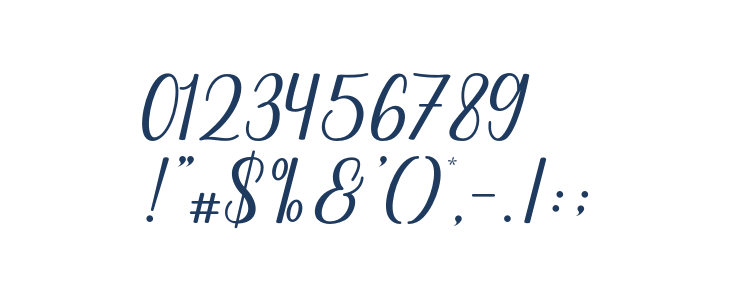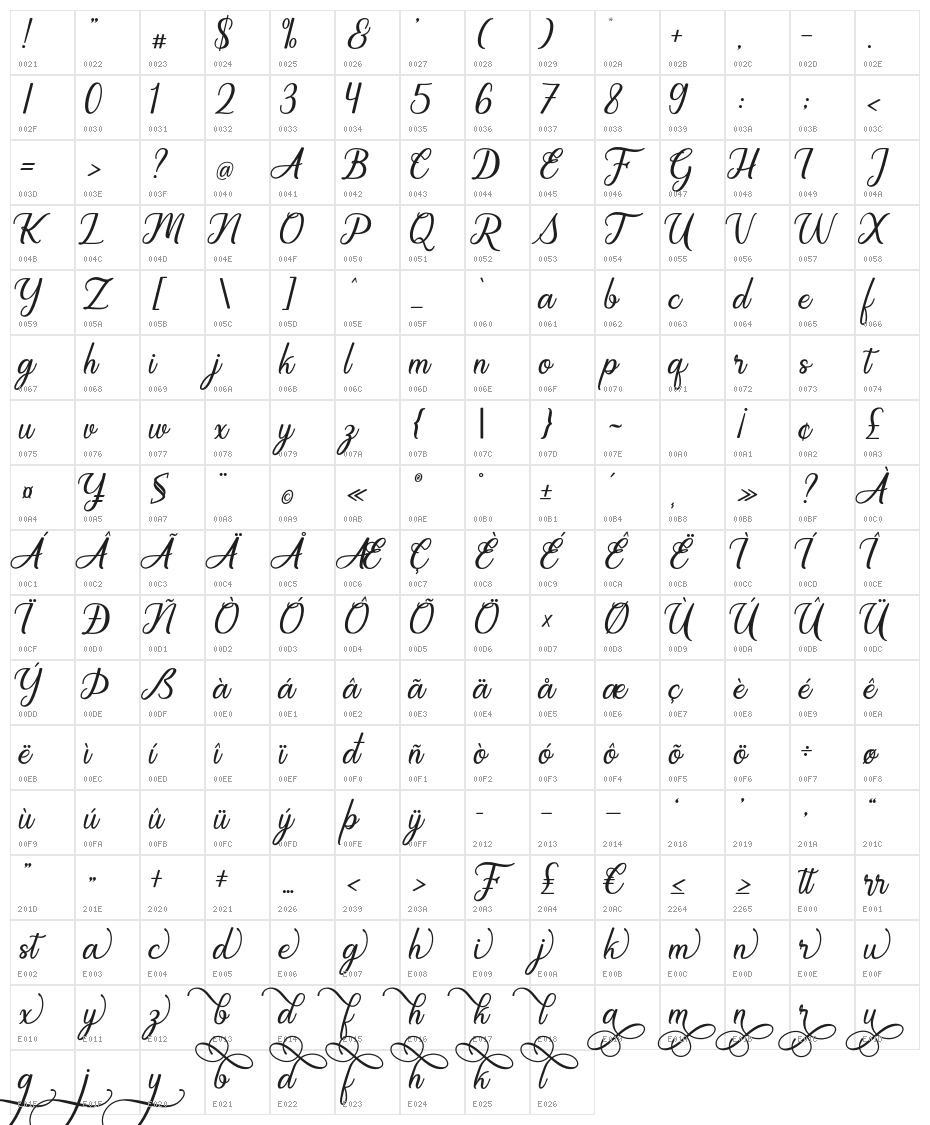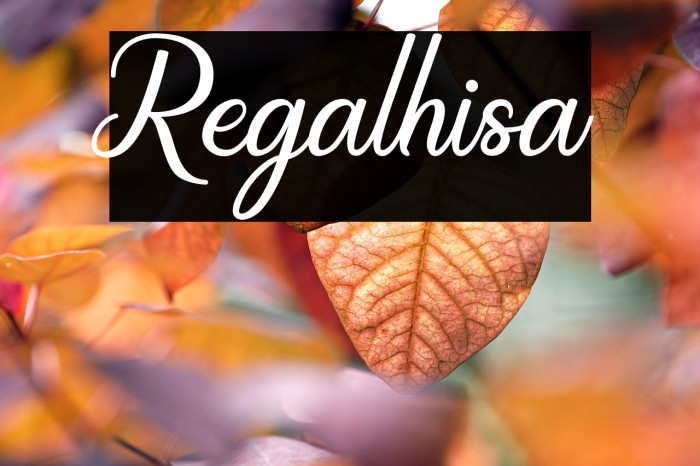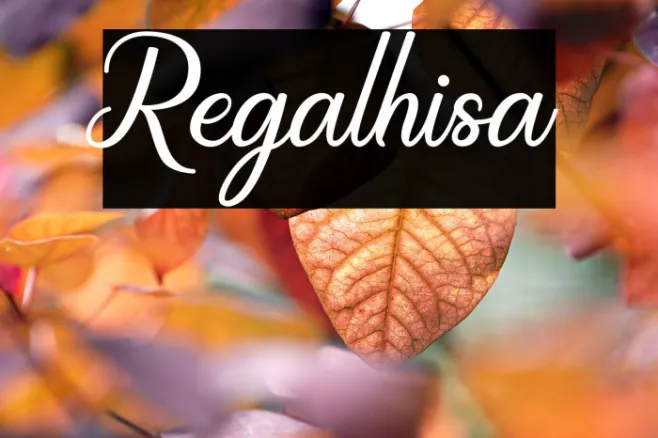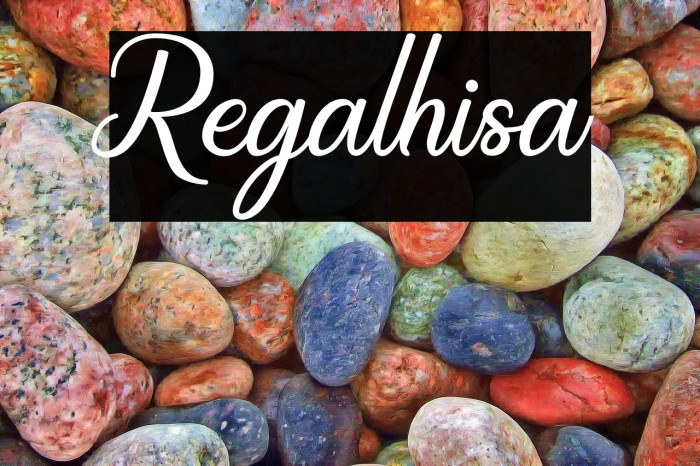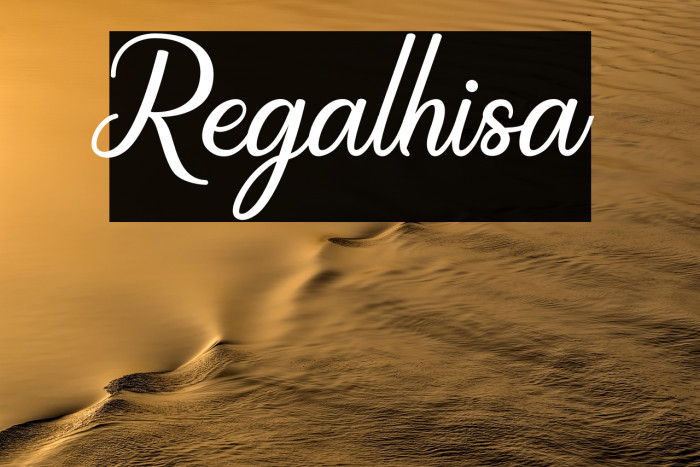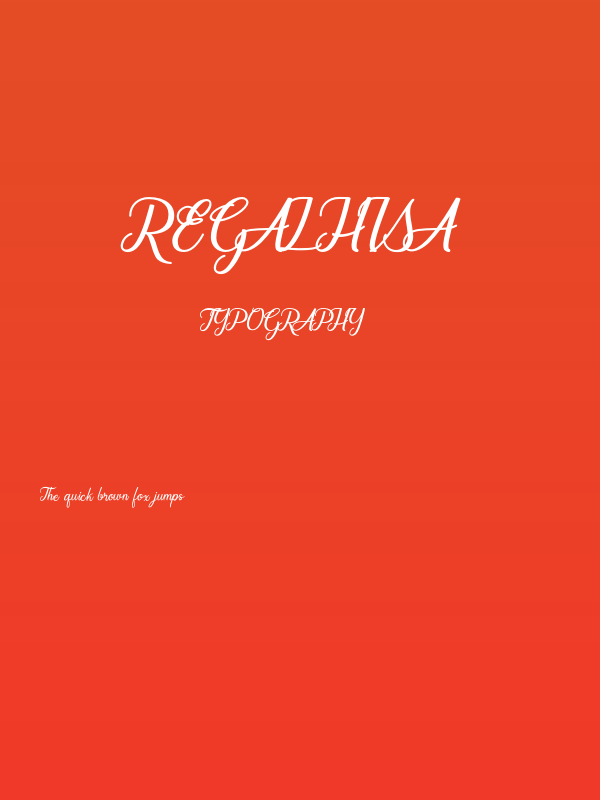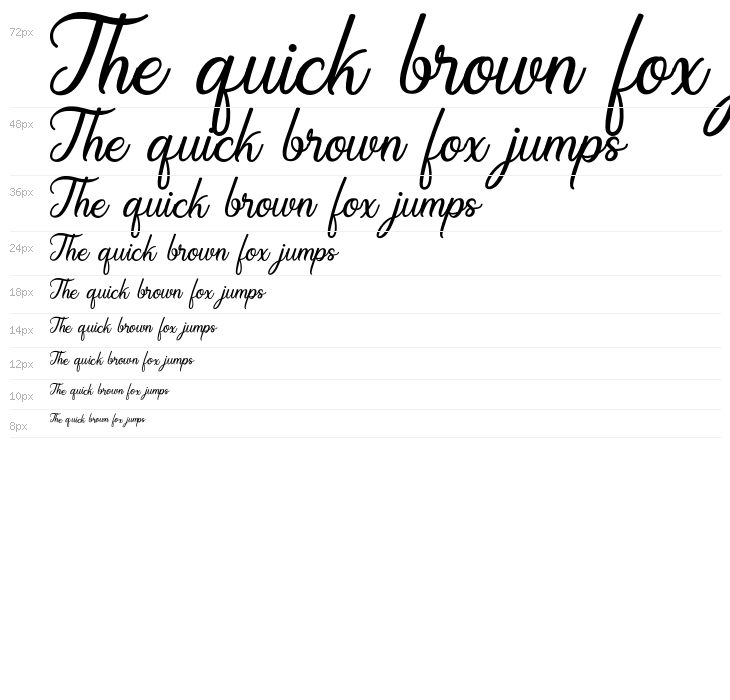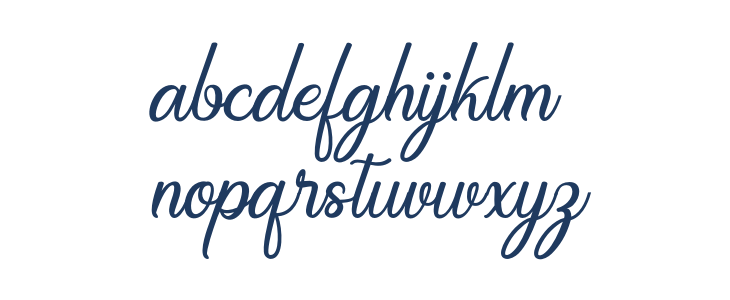
Regalhisa Font
Regalhisa Description
This font exudes elegance and sophistication with its flowing script style. The characters are intricately designed, featuring smooth curves and delicate flourishes that give it a refined, handwritten appearance. The uppercase letters are particularly ornate, with sweeping lines that extend beyond the baseline, adding a touch of grandeur. The lowercase letters maintain a consistent style, ensuring readability while preserving the decorative nature. Numbers and special characters are crafted to match the overall aesthetic, making this font versatile for various applications. Its classic script style is ideal for projects that require a touch of elegance and formality.
| Proposed Projects | Wedding invitations, luxury branding, elegant stationery, formal event programs. |